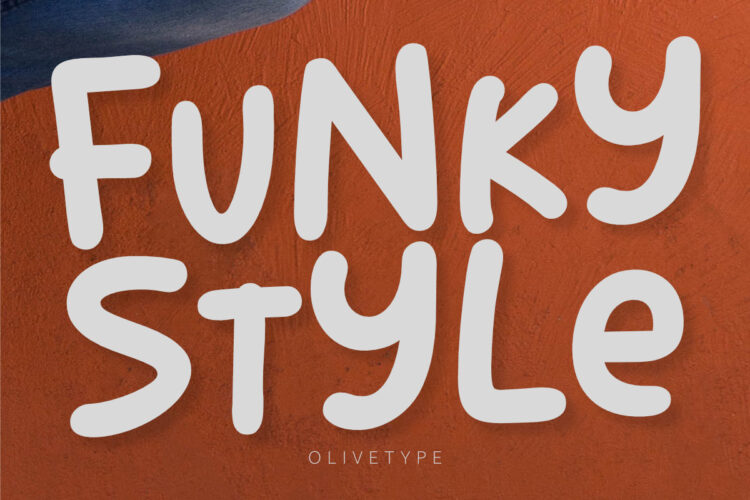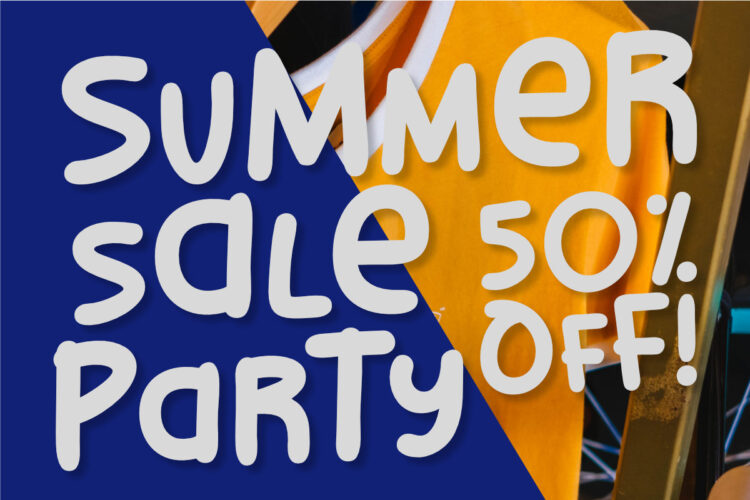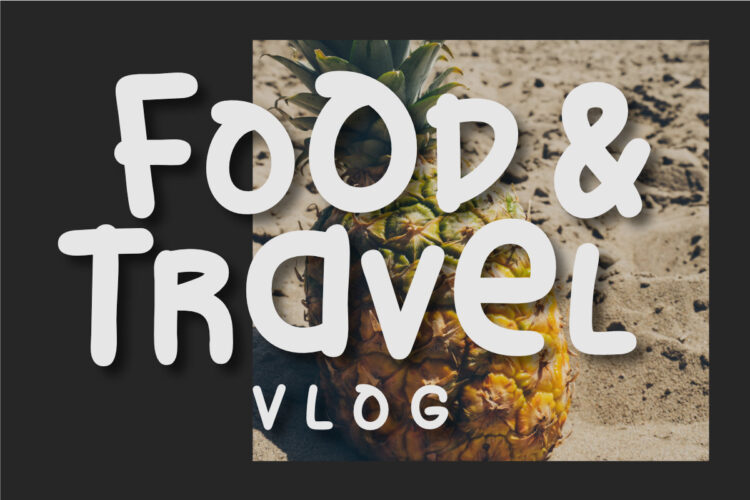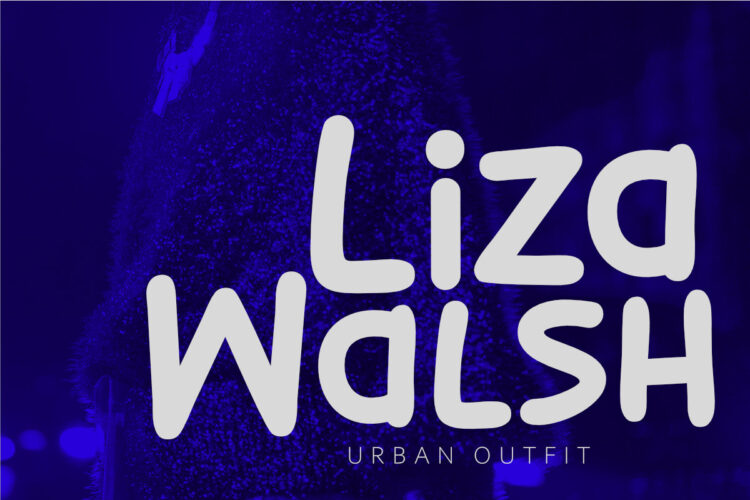
Funky Style is a bold and fun display font. With its vibrant personality, this font is suitable for those looking to inject some life into their logos, posters, or any other creative project. Embrace the spirit of fun and unleash your creativity like never before with Funky Style!